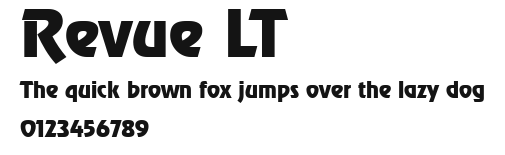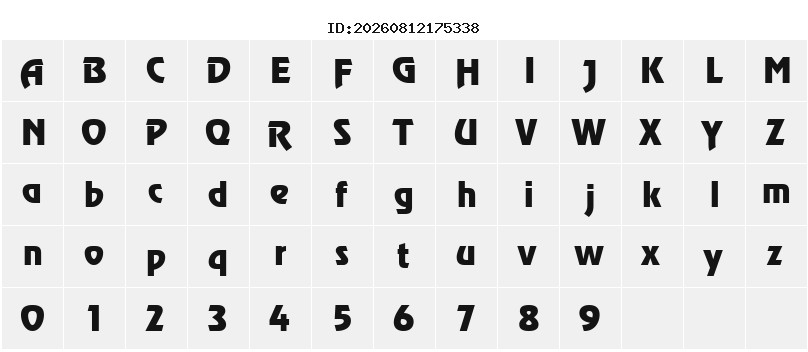
Revue LT Preview
Revue LT.ttf is a modern, elegant sans-serif font designed for ultimate readability and visual harmony. Perfect for branding, headlines, web design, and print materials.